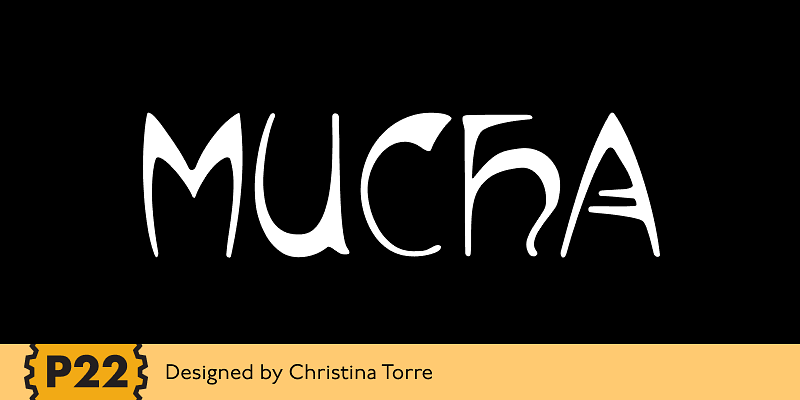
P22 Mucha
P22 Mucha is a display typeface capturing the elegant, free-flowing lettering style of Art Nouveau. Drawing inspiration from the work of Alfons Mucha circa 1900, it adapts its curving forms and delicate flair, giving it a lyrical, ornamental quality that feels historical and imaginative. Distinctly organic and evoking the essence of _fin de siècle_ Paris and Prague, it is ideal for invitations, boutique branding, museum ephemera, or editorial spreads with a decorative edge.